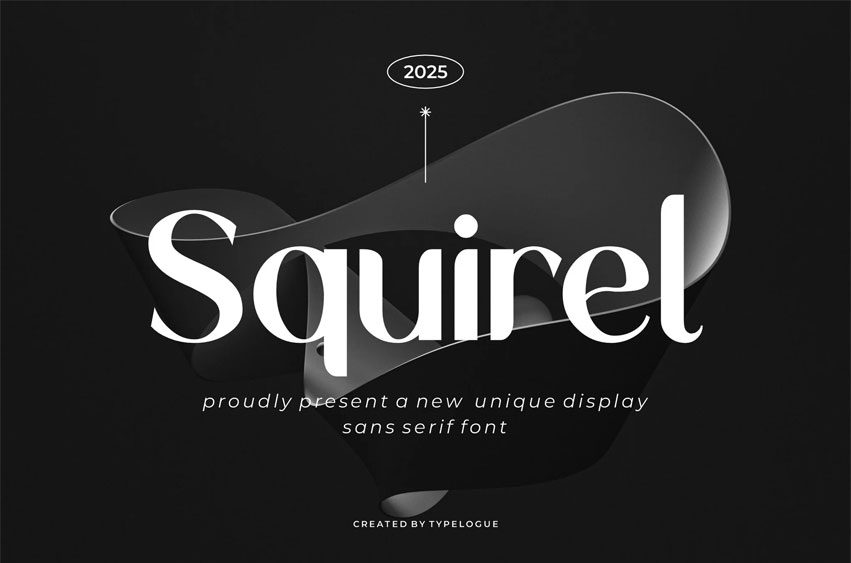
Squirel Font is a unique and elegant display sans-serif font that blends modern minimalism with artistic flair. Designed to captivate, it features smooth curves, stylish cuts, and playful character shapes, making it perfect for premium branding, fashion editorials, creative packaging, and standout headlines.
Its distinctive look brings sophistication and personality to every design, while maintaining clean readability. Whether you’re building a luxury identity or crafting a striking visual concept, Squirel gives your typography a refined, high-end finish. Let your designs speak with style, charm, and confidence.